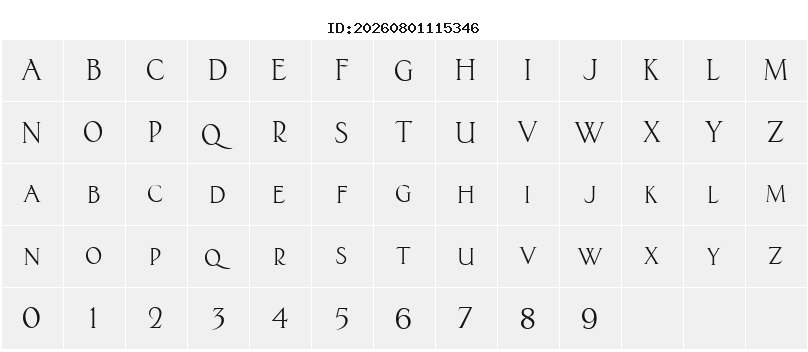
LHF Corrie Preview
• Font Name: LHF Corrie
• Font ID: LHF Corrie
• Full Font Name: LHF Corrie
• PostScript Name: LHFCorrie
About LHF Corrie.ttf
LHF Corrie.ttf is a modern, elegant sans-serif font designed for ultimate readability and visual harmony. Perfect for branding, headlines, web design, and print materials.